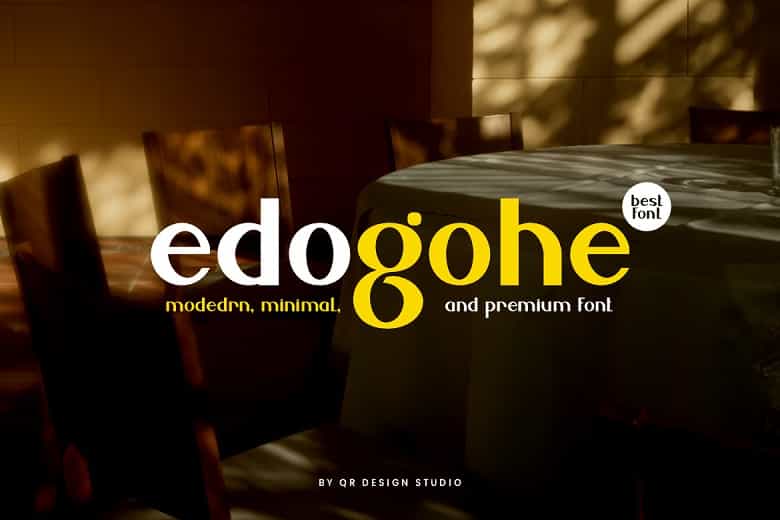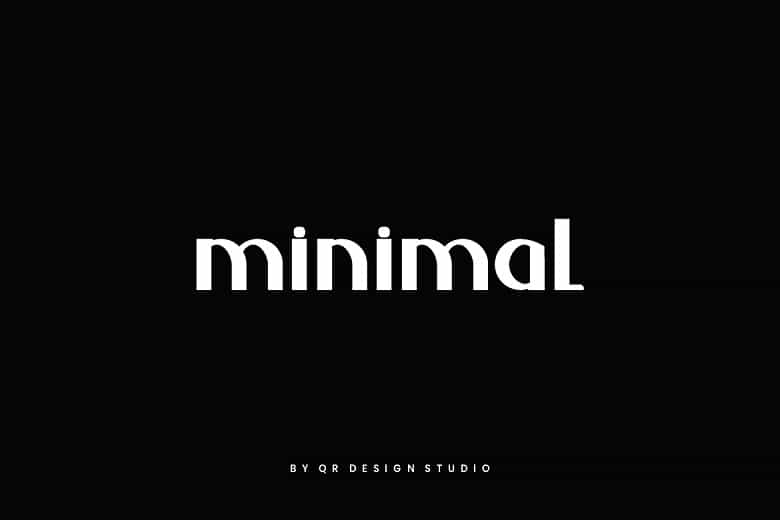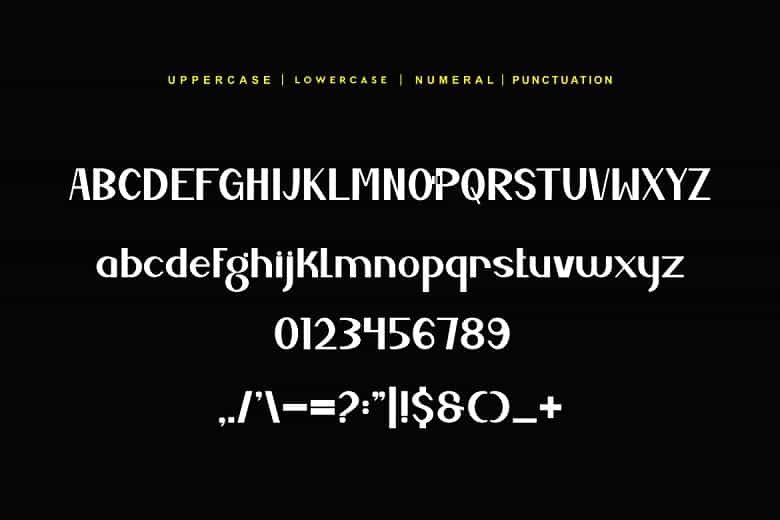
Edogohe is a charming and elegant sans serif font that would never go out of style. Thus, it is the most suitable for designing logos, branding, and quotes that will capture people’s attention. Each letter has its own elegance and you can give life to your design with it!